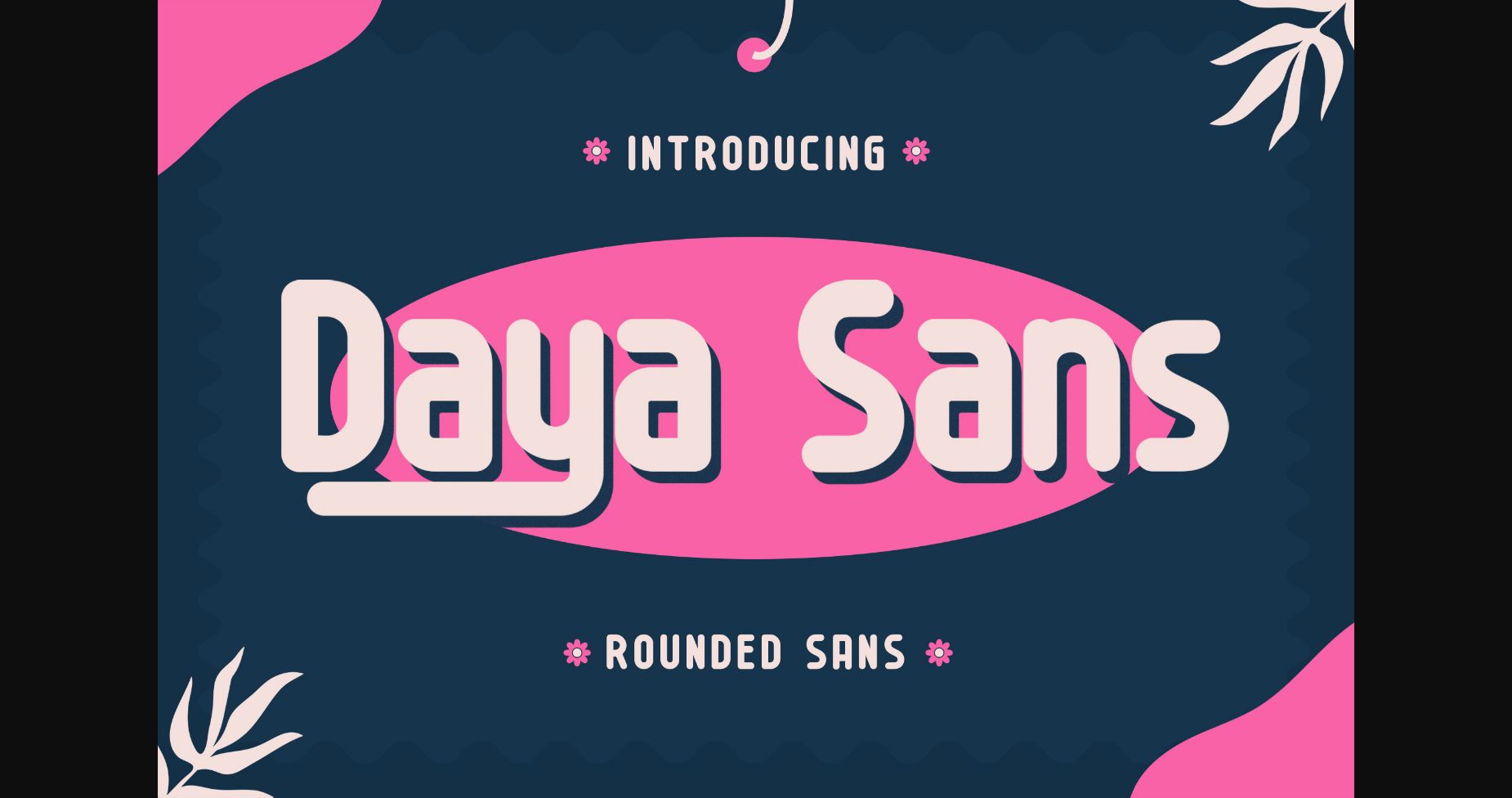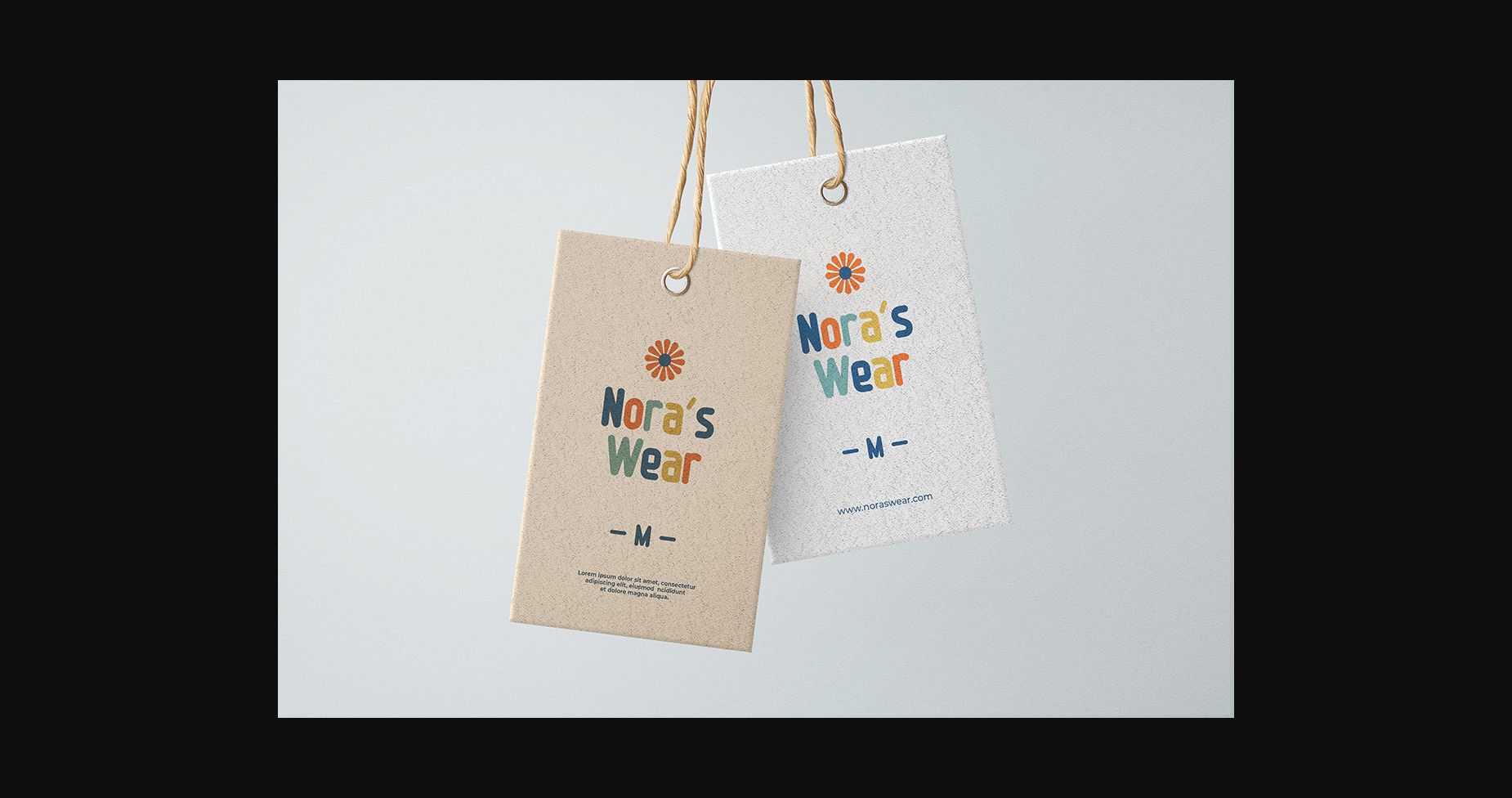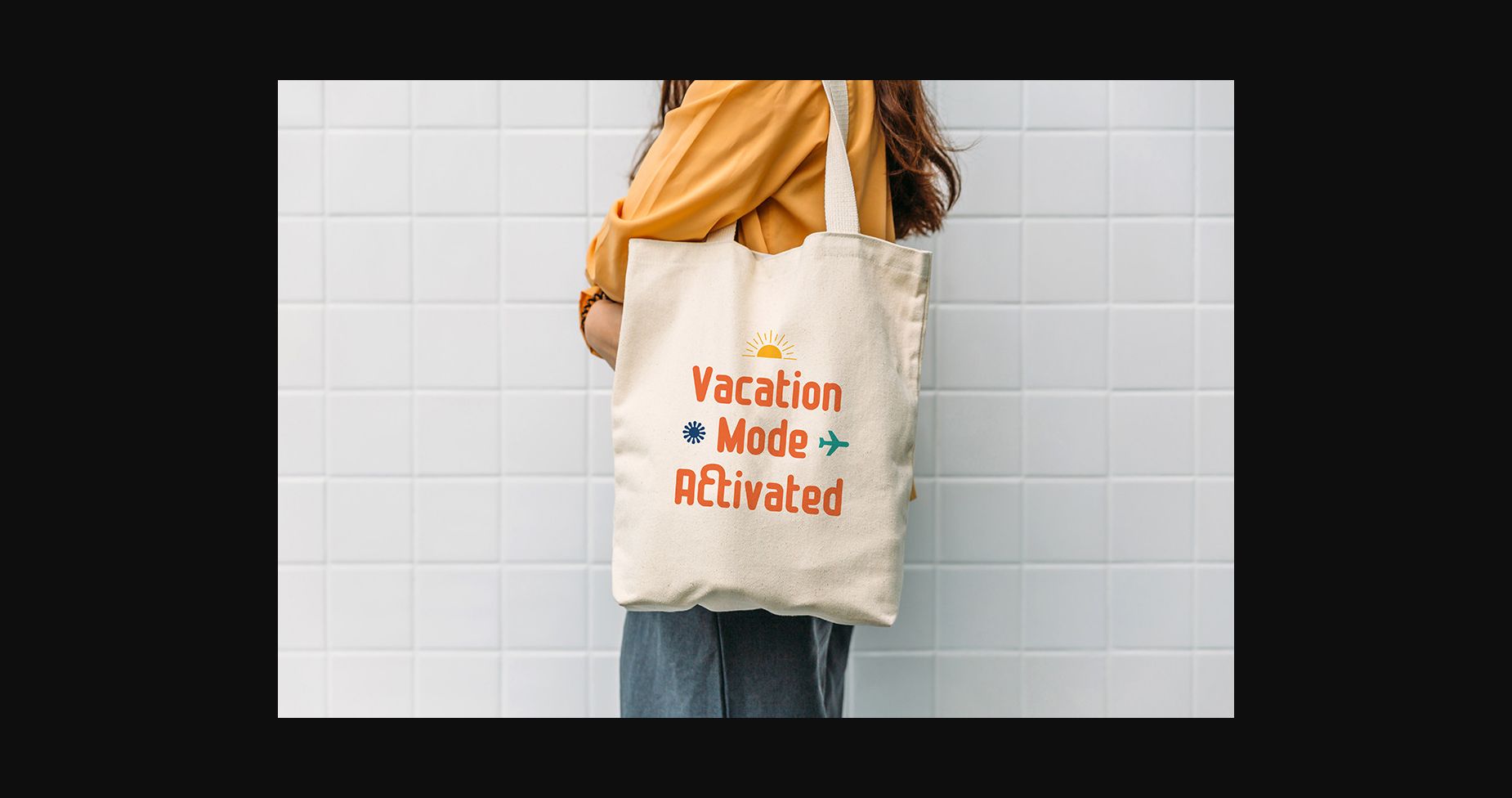
About Daya Sans Font
Daya Sans is a cool, classic and rounded sans serif font. No matter the topic, this font will be an incredible asset to your fonts’ library, as it has the potential to elevate any creation.